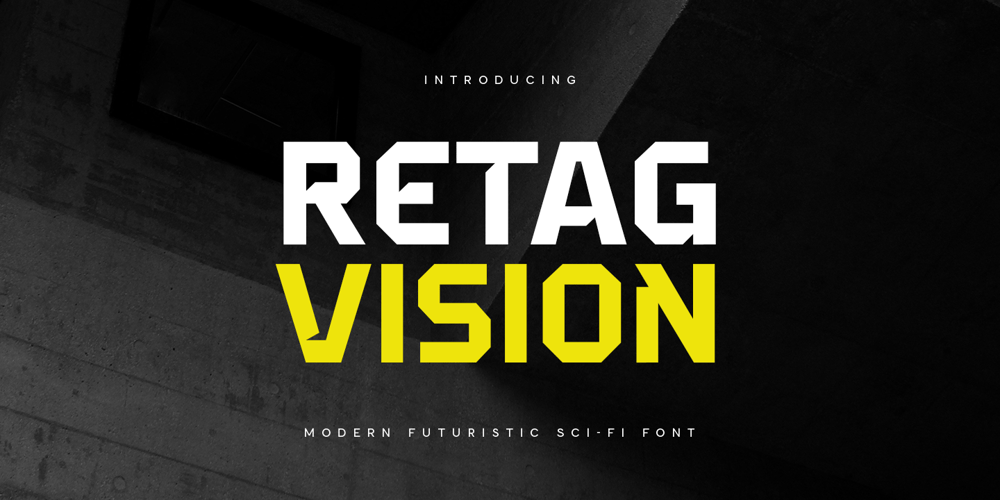
Retag Vision Font Family was designed by Zamroni Hamzah and published by Sensatype Studio. Retag Vision contains 1 styles and family package options. Retag Vision is A Modern Futuristic Techno Font, This Modern Futuristic font are prepared special for Technology, Modern, and Futuristic design needs, that created special for Logo, Title and more stand out typography for futuristic and sci-fi. It’s so perfect to add your style and headline overview for technology, film, space, and futuristic theme. And specially for this font, we’ve ready for modern feels so enjoy to create any project that will show your main idea out.Retag Vision is A Modern Futuristic Techno Font ready with: Ready with All-Caps Characters with different shape inside 4 files format already Preview as a inspirations that you can do with Retag Vision font Perfect for Futuristic Design–Uppercase Wish you enjoy our font. ๐